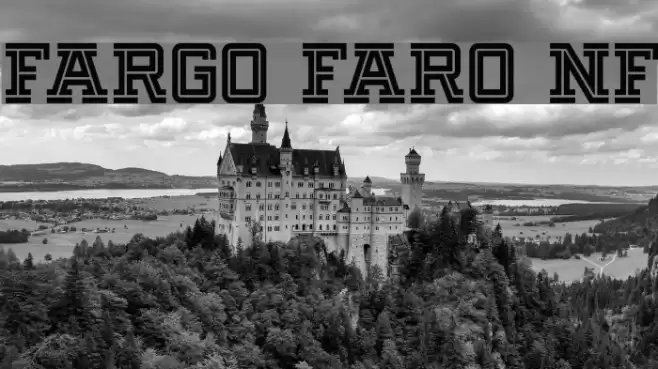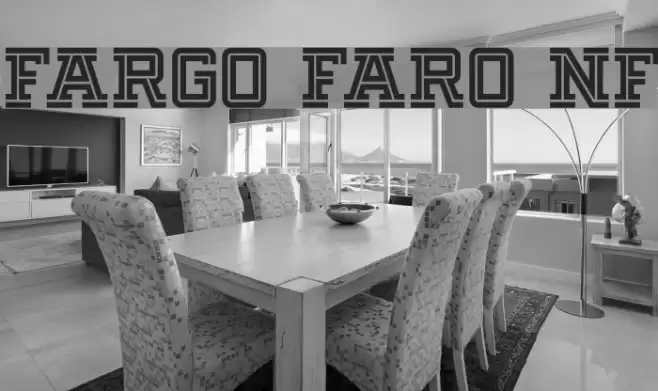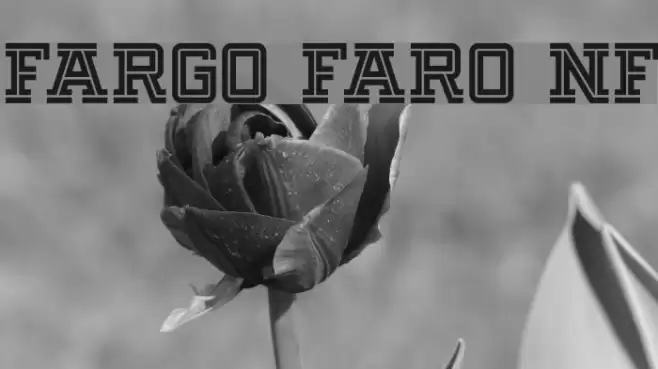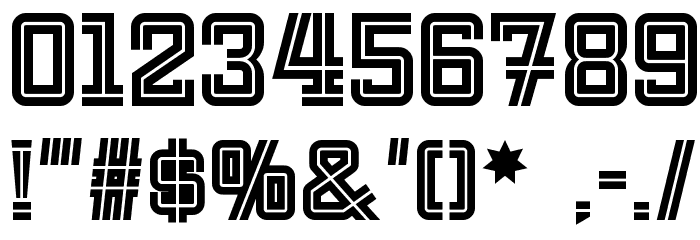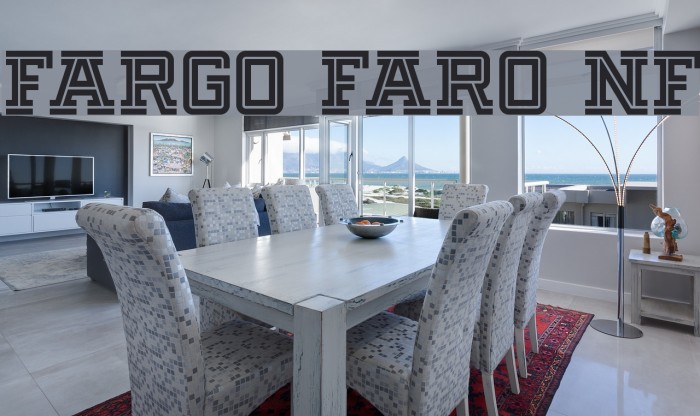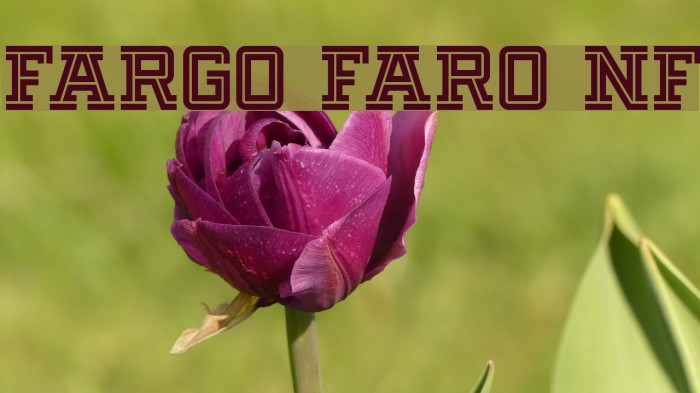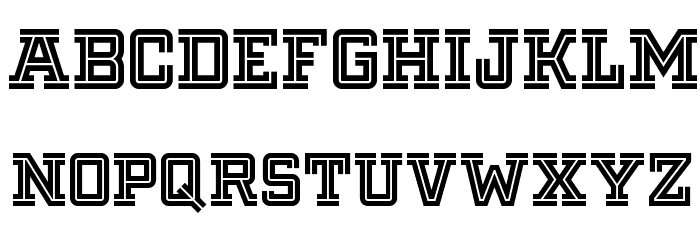
Fargo Faro NF Font
Fargo Faro NF Description
This font features a bold, decorative style with a double-line effect that gives it a dimensional appearance. The uppercase letters are prominent and structured, with a strong geometric influence. The numbers and special characters maintain this bold, outlined style, ensuring consistency across all glyphs. The font's design is reminiscent of vintage signage or sports jerseys, making it stand out with its unique and eye-catching appearance. The characters are evenly spaced, providing a balanced and cohesive look. This font is ideal for projects that require a strong visual impact and a touch of nostalgia.
A bold, decorative font with a double-line effect, perfect for vintage-inspired designs from Old fashioned fonts.
- Proposed Projects: Ideal for sports branding, vintage posters, signage, and any project needing a bold, standout typeface.
- Overall Style: Vintage